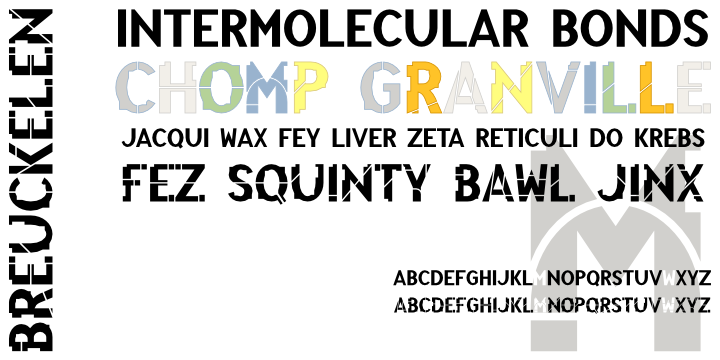
• Breuckelen™
Breuckelen was inspired by the regular patterns of the New York City plan. The grid of any large modern city is immediately recognizable by the distinctive pattern of major roads curving or slanting through it. This face is intended to be recognizable in the same way. It is named after the Dutch town after which Brooklyn is named, a word which also roughly translates as “broken land”.